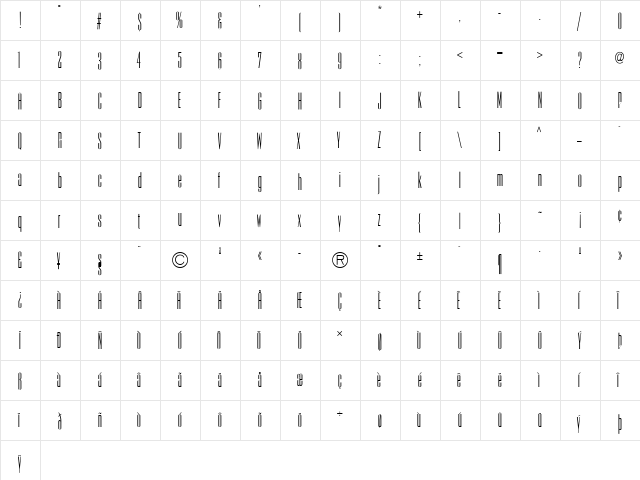
EmpireStateLight Regular
Design Context for EmpireStateLight Typeface
EmpireStateLight is a composed and adaptable typeface that performs quietly and consistently across a wide range of design contexts. Its slender proportions lend an understated elegance to any composition.